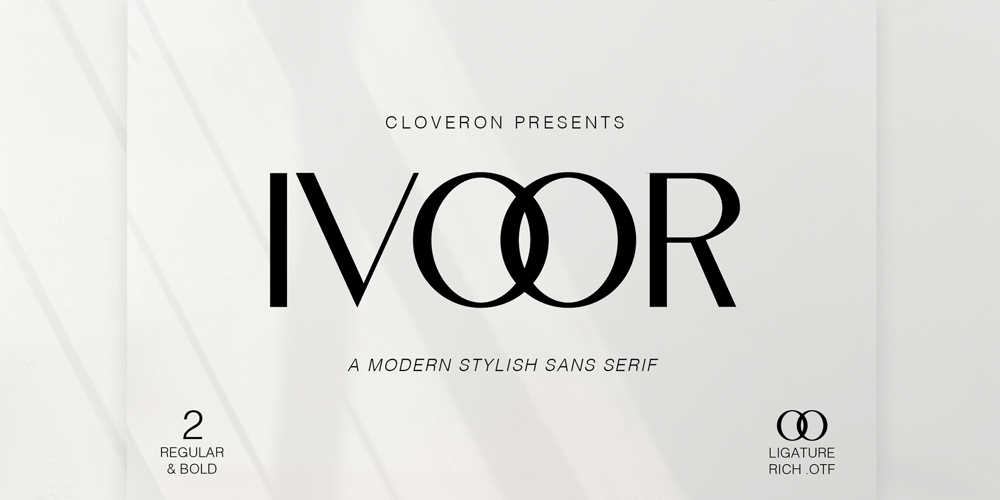
Ivoor Font Family was designed by Mary Anne Remulla and published by Cloveron Media. Ivoor contains 2 styles and family package options. Meet Ivoor, a new sans serif typeface of the 21st century. It has distinct letter accents and comes with beautiful ligatures. It’s a very versatile font that works as standalone or paired with other fonts. It is a great design choice for branding, logo, labels, packaging, magazine headers & so much more.Features: Weights – Regular & Bold Lowercase & Uppercase Classy Ligatures Numerals & Punctuation Multilingual Characters In .otf file Language Support: Western Europe Follow my shop for upcoming updates and new products that you might be interested in next time. Please message me for any suggestions and support. I would like to hear it. Thank you!